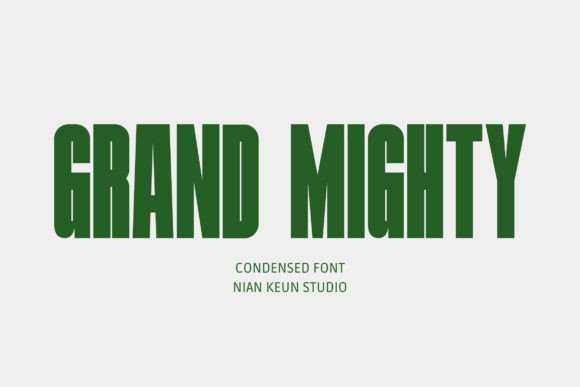
Feast your eyes on Grand Mighty, a sans serif font that captivates with its refined minimalism. This font is not just a collection of characters; it's an artistic statement that breathes life into your designs. With its condensed design, Grand Mighty exudes a sense of power and efficiency, demanding attention wherever it appears.
Indulge in the versatility of Grand Mighty, a font that effortlessly adapts to a myriad of design endeavors. It's the perfect companion for crafting logos that leave a lasting impression, promotional materials that ignite excitement, and headlines that command attention. Unleash your creativity and let Grand Mighty elevate your designs to new heights of sophistication.
Are you ready to make a statement? Grand Mighty is your secret weapon for creating designs that speak volumes. Its clean lines and modern aesthetic will transform your projects into masterpieces of elegance and impact. Don't settle for ordinary fonts; embrace the power of Grand Mighty and watch your designs soar to new heights.
Experience the allure of Grand Mighty, a sans serif font that embodies sophistication and style. Its condensed design is a testament to its efficiency and power, ensuring your message cuts through the noise and leaves an unforgettable mark. Elevate your designs with Grand Mighty, the font that transforms ordinary into extraordinary.